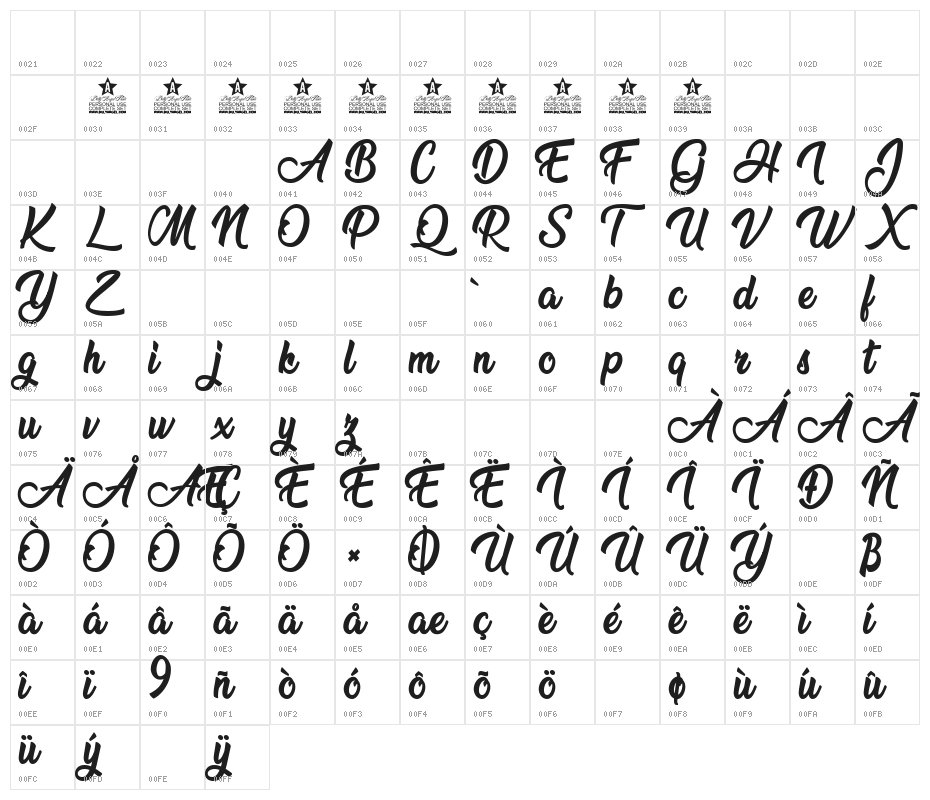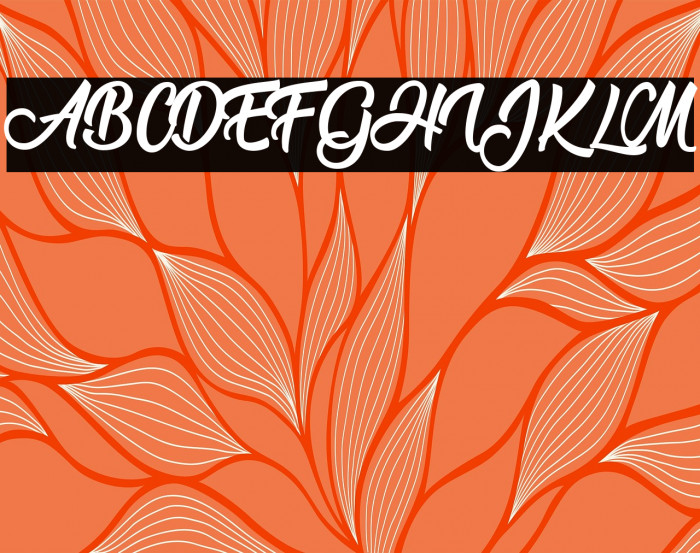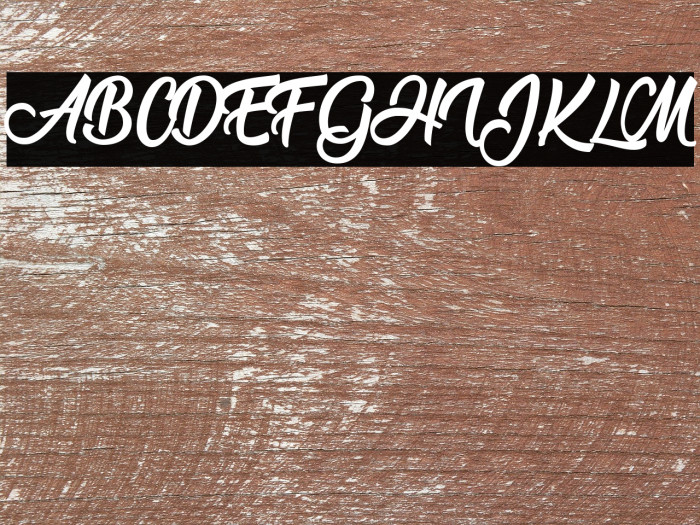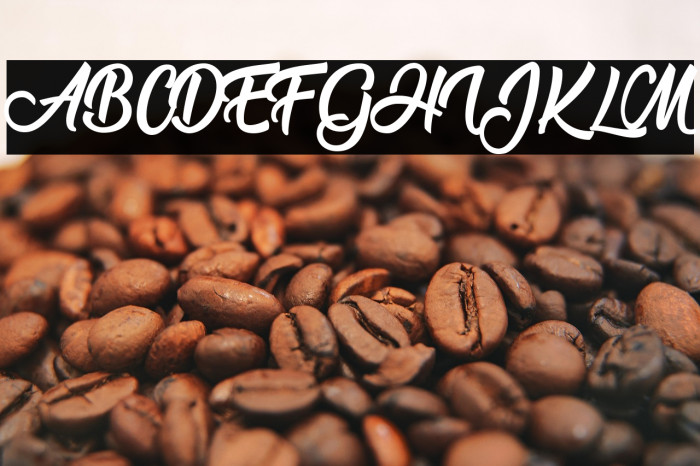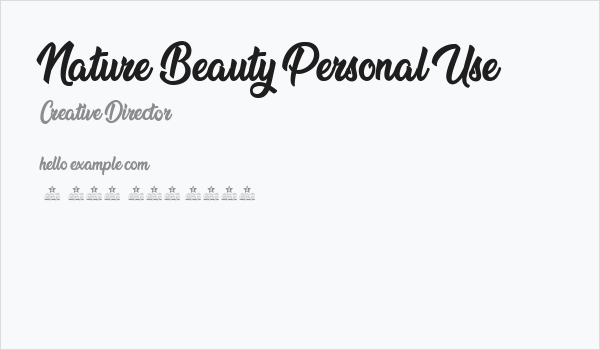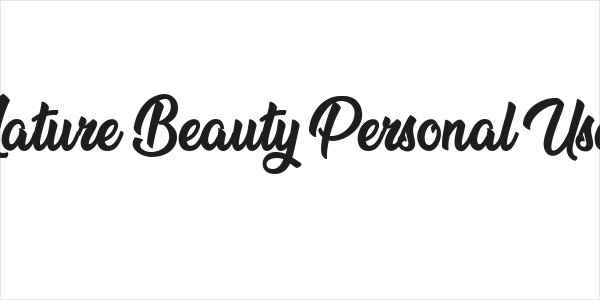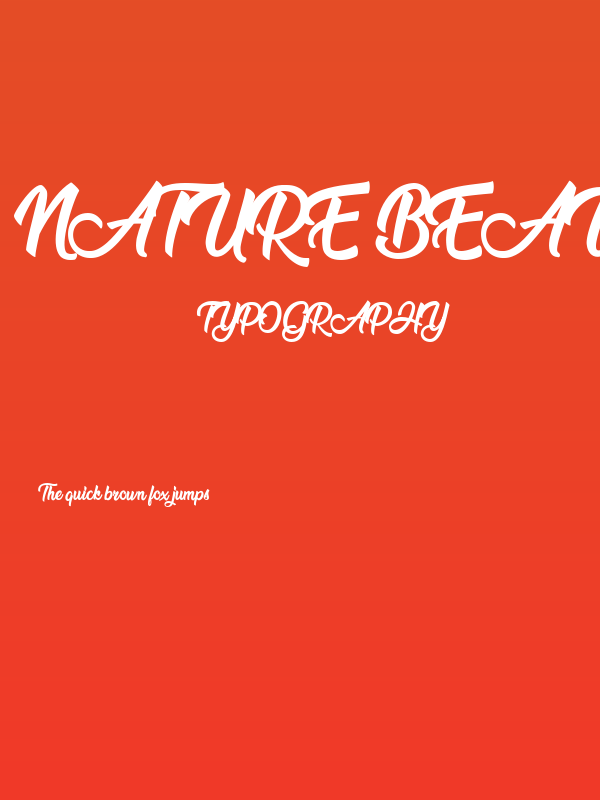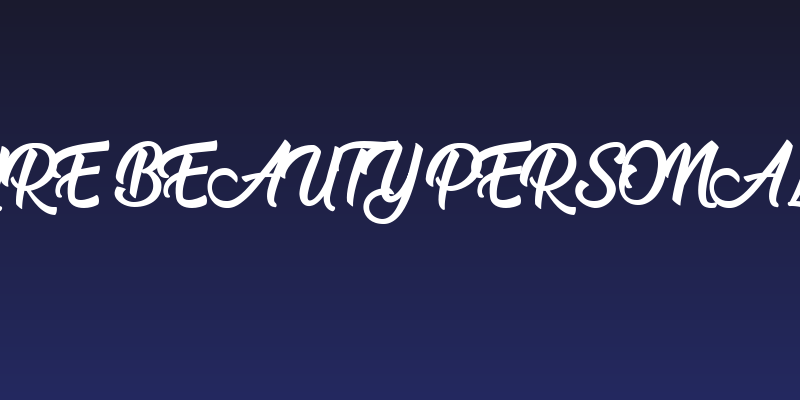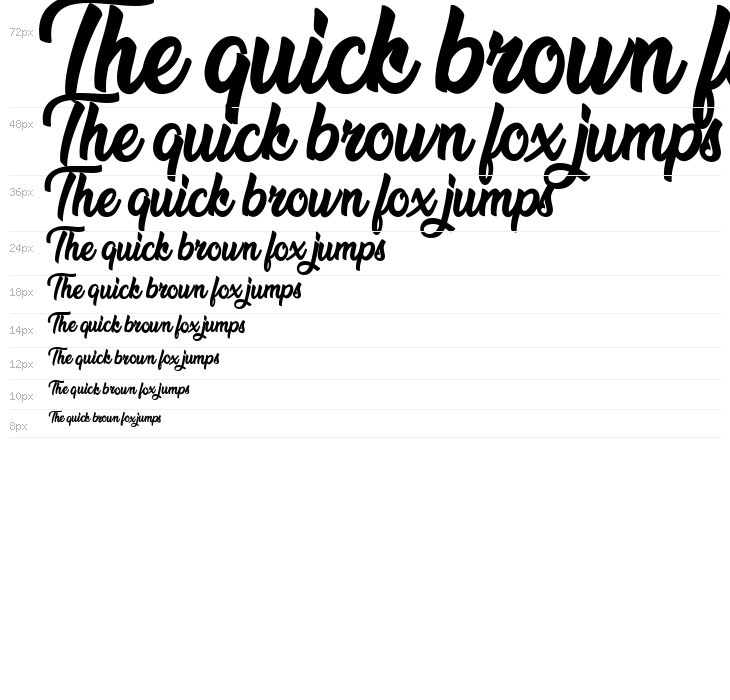
Nature Beauty Personal Use Font
Nature Beauty Personal Use Description
This font features a bold, flowing script style with elegant curves and a handwritten aesthetic. The uppercase letters are characterized by their sweeping lines and decorative flourishes, giving them a sophisticated and artistic appearance. The lowercase letters maintain a consistent flow, enhancing readability while retaining a stylish flair. The numbers and special characters are designed to complement the overall script style, ensuring a cohesive look across all text. This font is ideal for projects that require a personal touch, such as invitations, greeting cards, and branding materials.